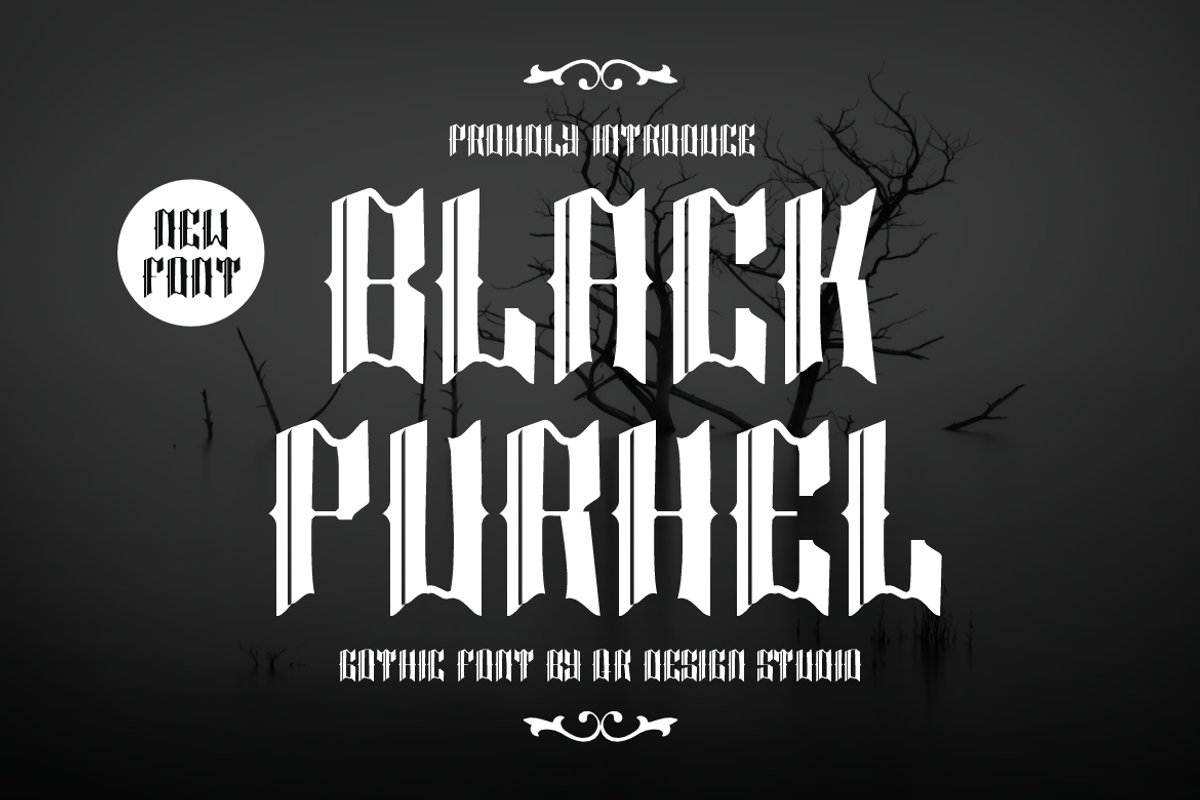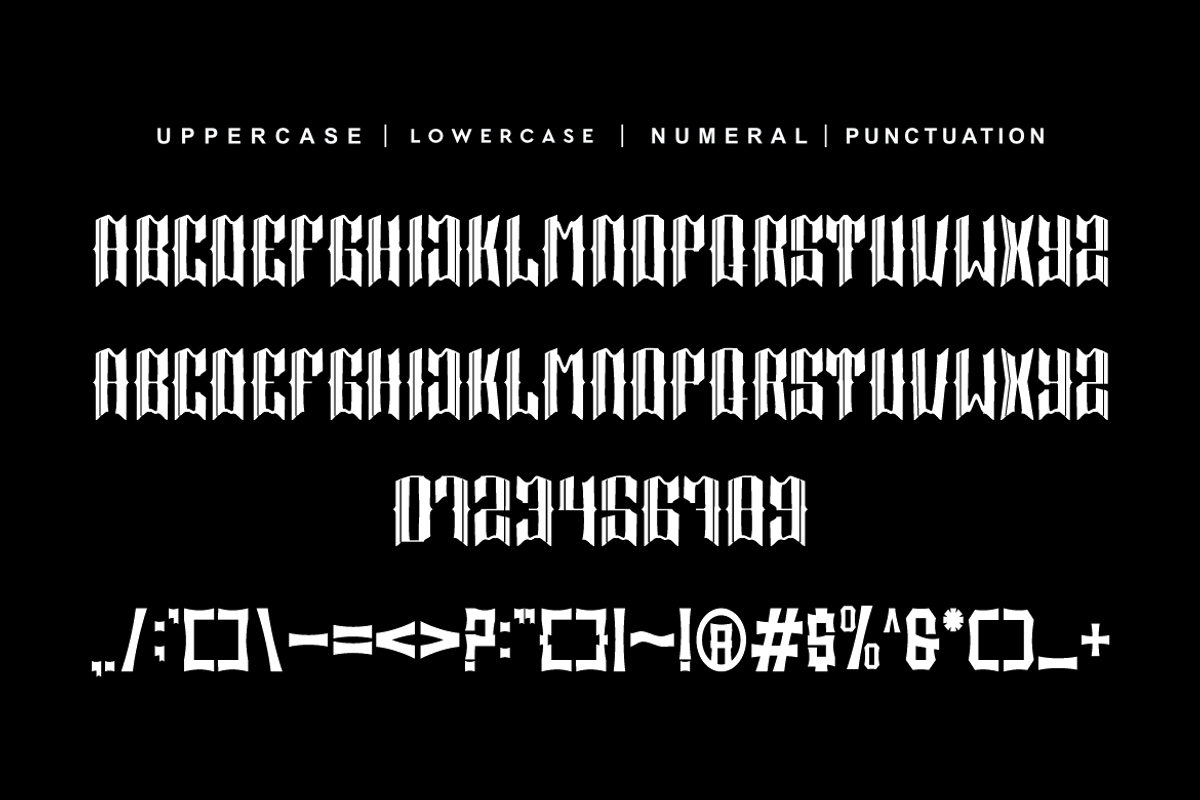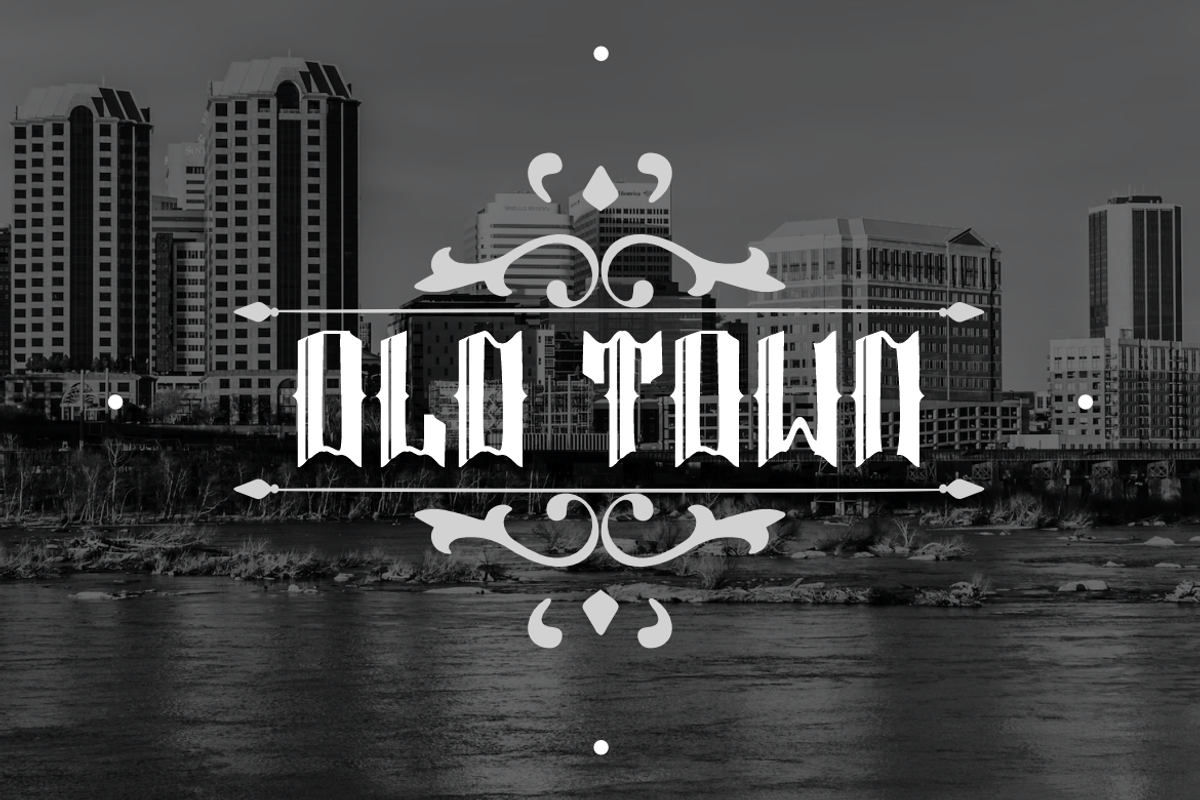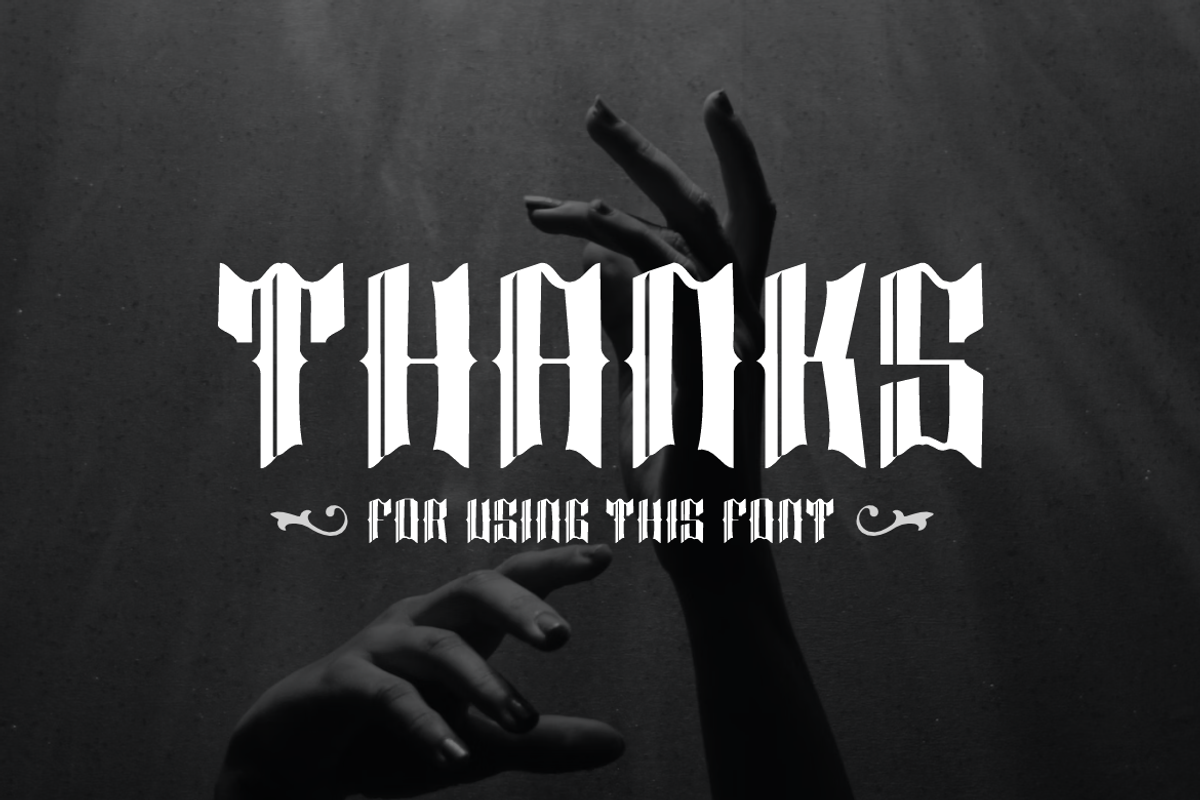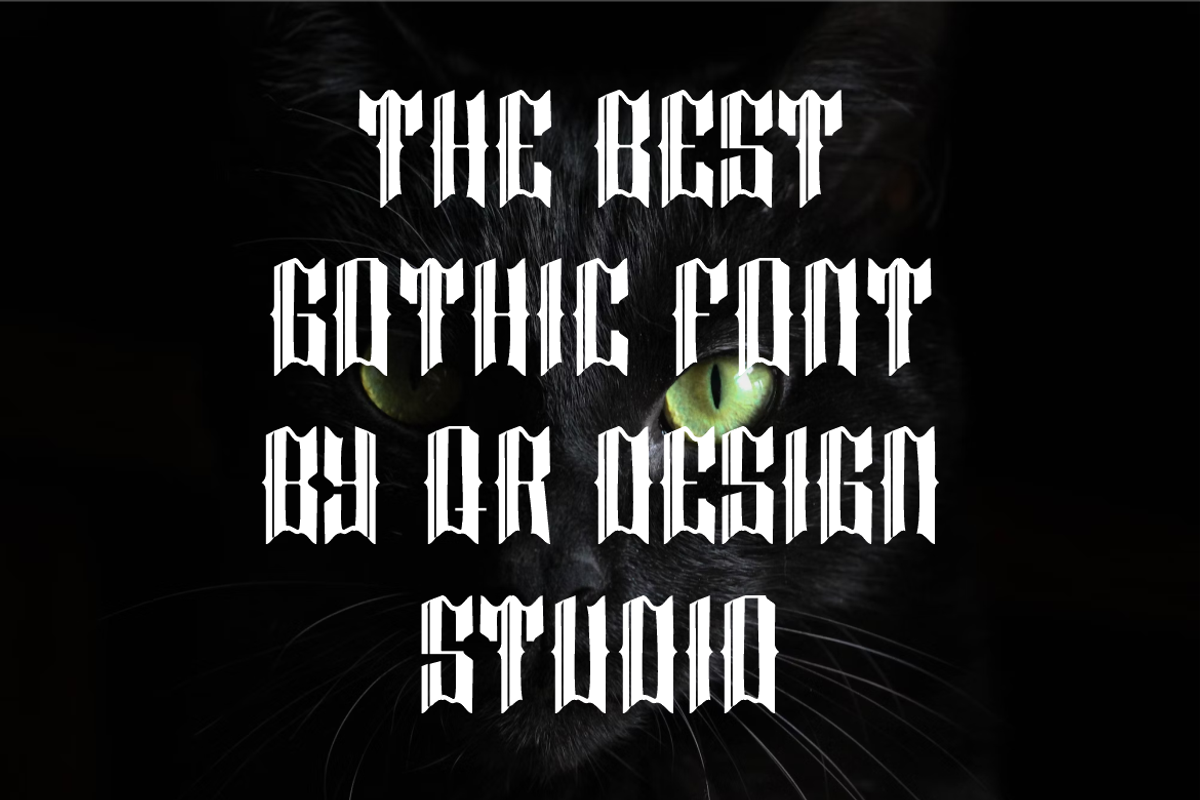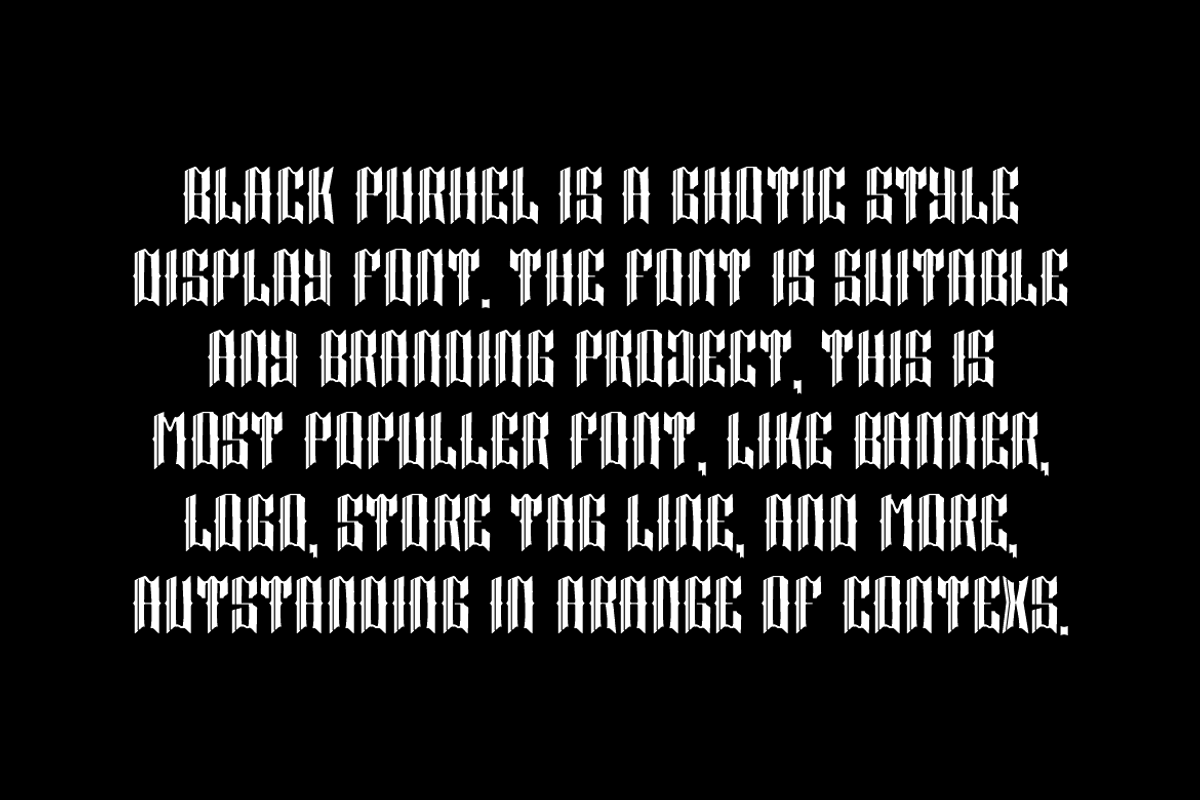
Black Purhel - Medieval Font
Black Purhel - Medieval Font is a bold and authentic display font. The font is suitable for any branding project like poster, music, logo, sport, and many more. Outstanding in a wide range of contexts.